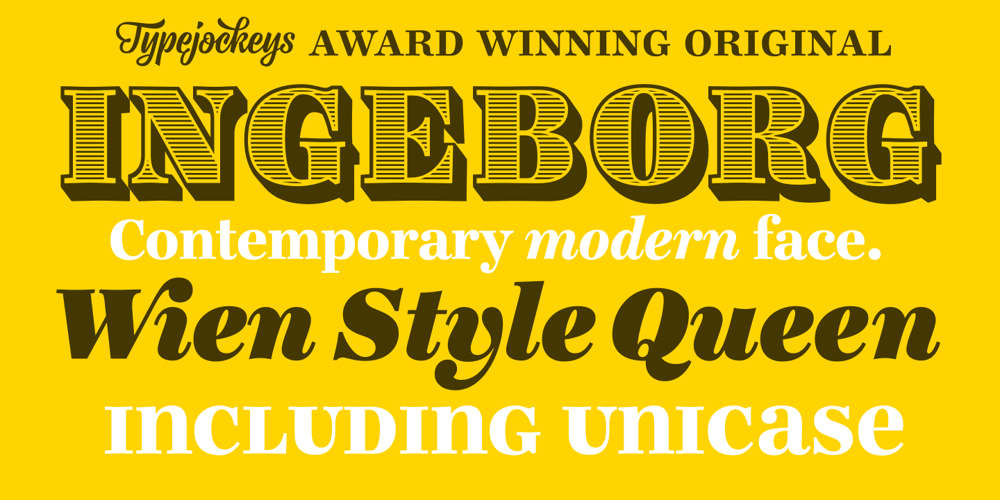
Ingeborg Font Family was designed by Michael Hochleitner and published by Typejockeys. Ingeborg contains 10 styles and family package options. The Ingeborg family was designed with the intent of producing a readable modern face. Its roots might well be historic, but its approach is very contemporary. Ingeborg’s Text Weights are functional and discreet. This was achieved without losing the classic characteristics of a Didone typeface, which are the vertical stress and the high contrast. The Display Weights on the other hand are designed to fulfil their job and catch the reader’s eye by individual form language and a whole lot of ink on the paper. Nevertheless both are of one origin and work together in harmony.